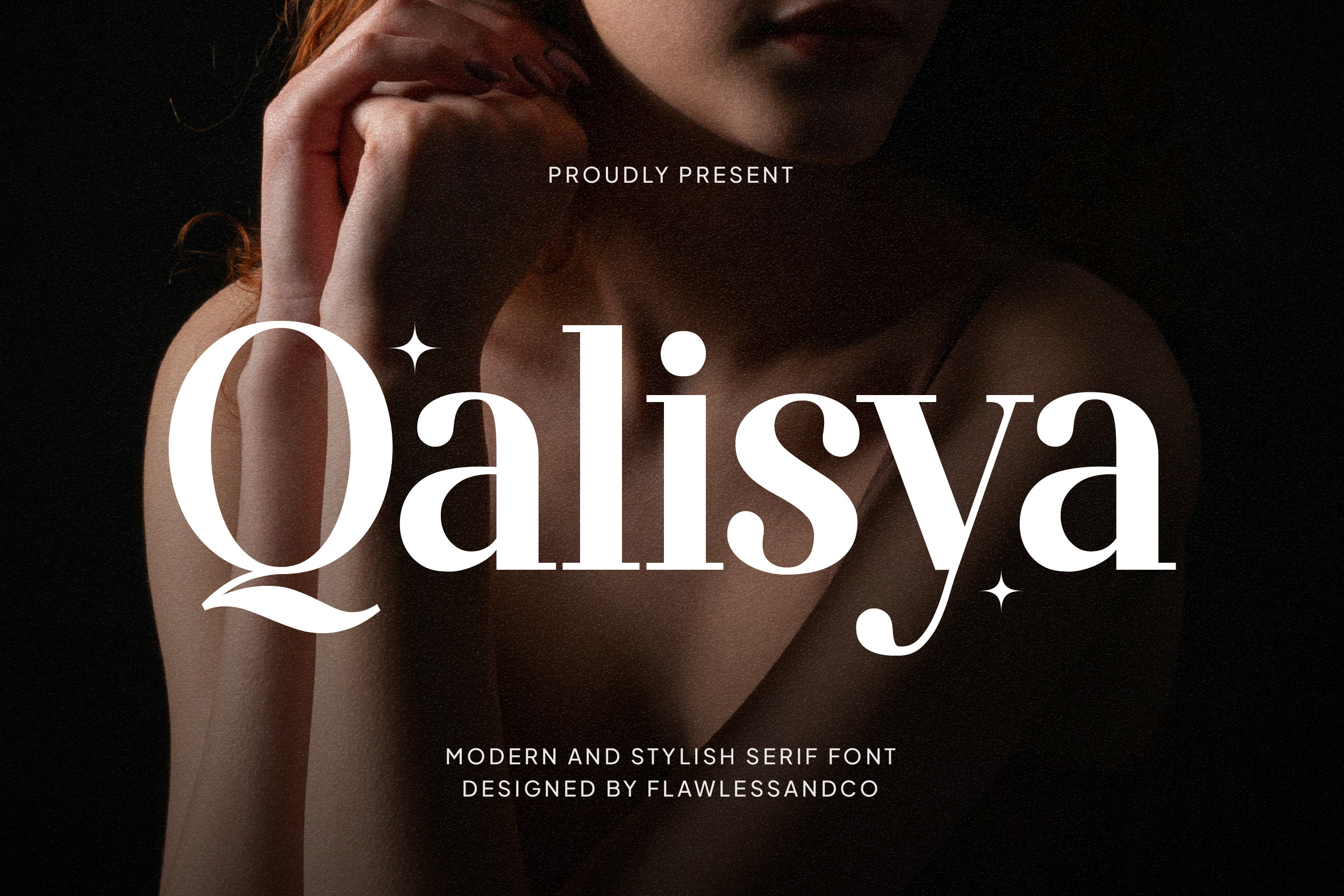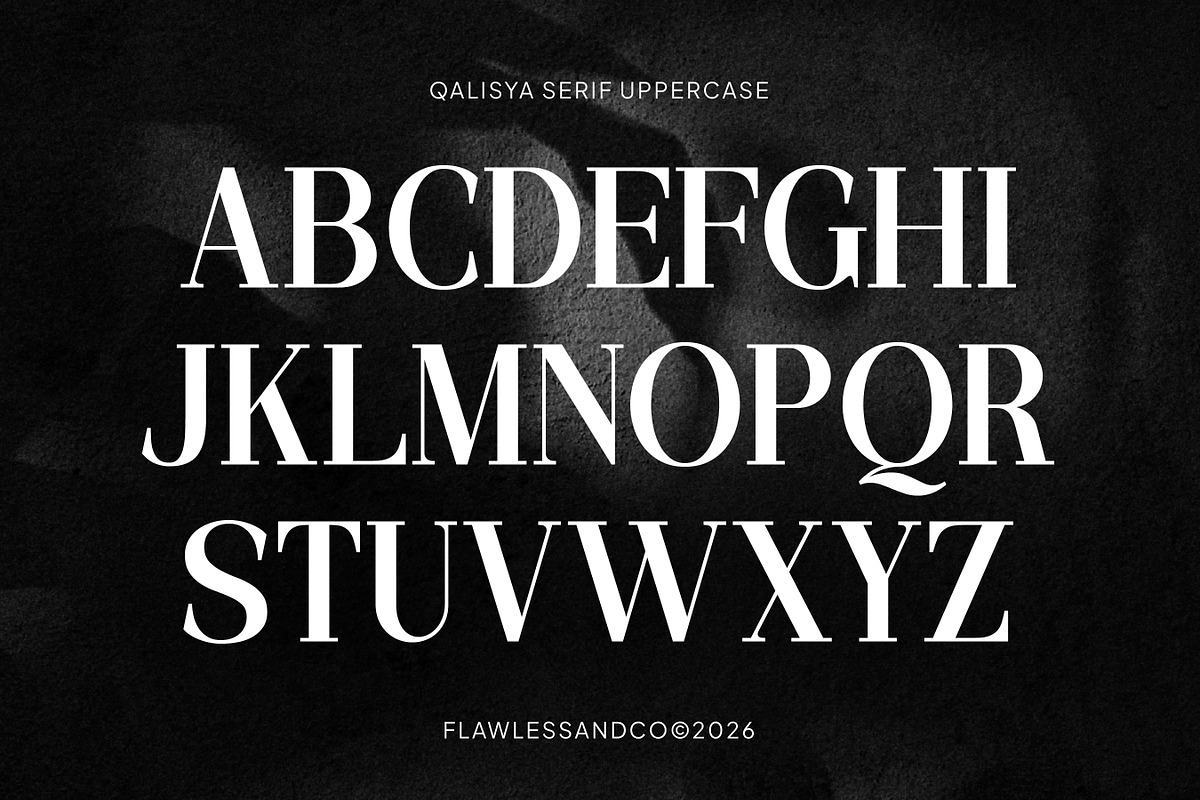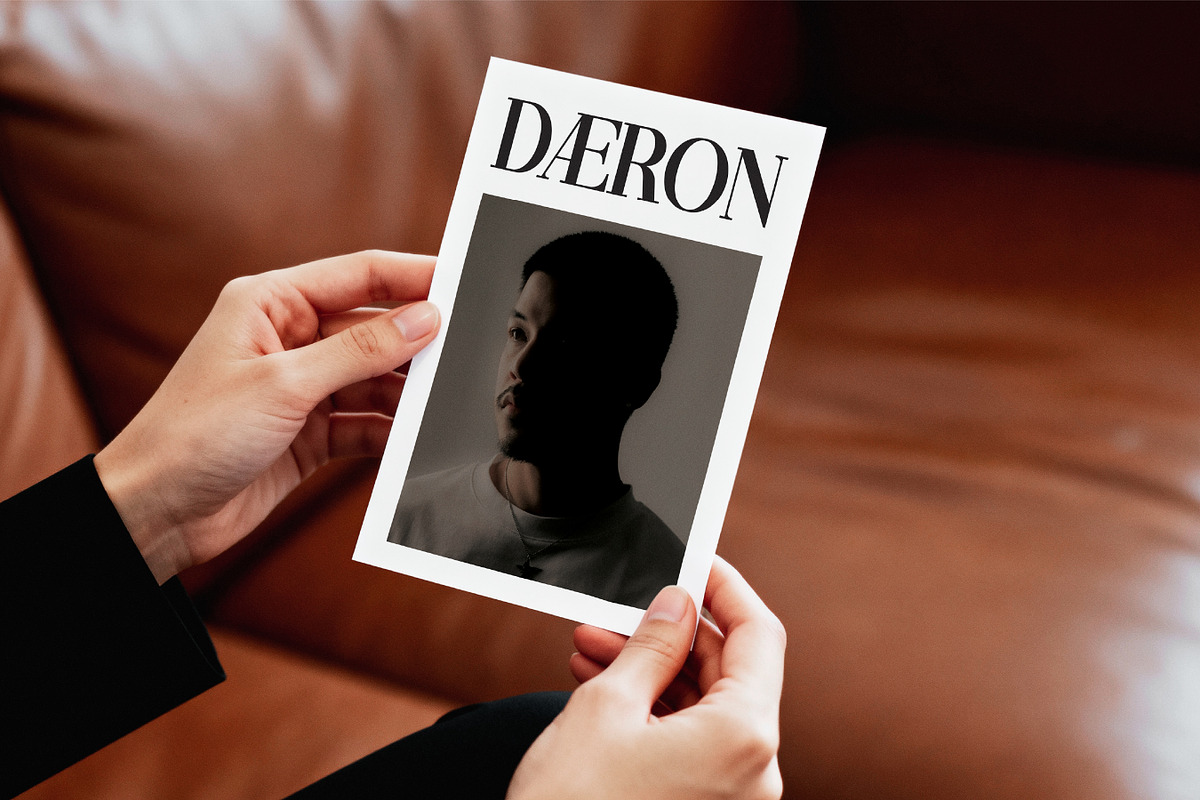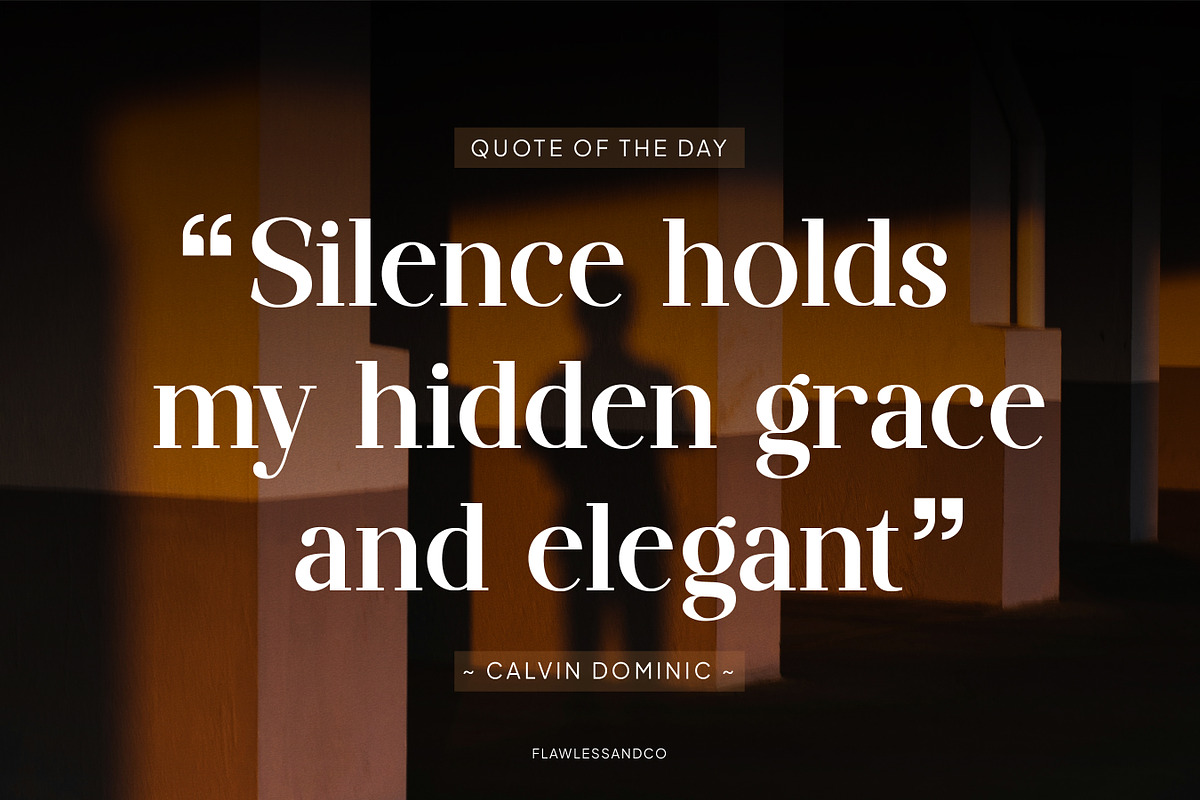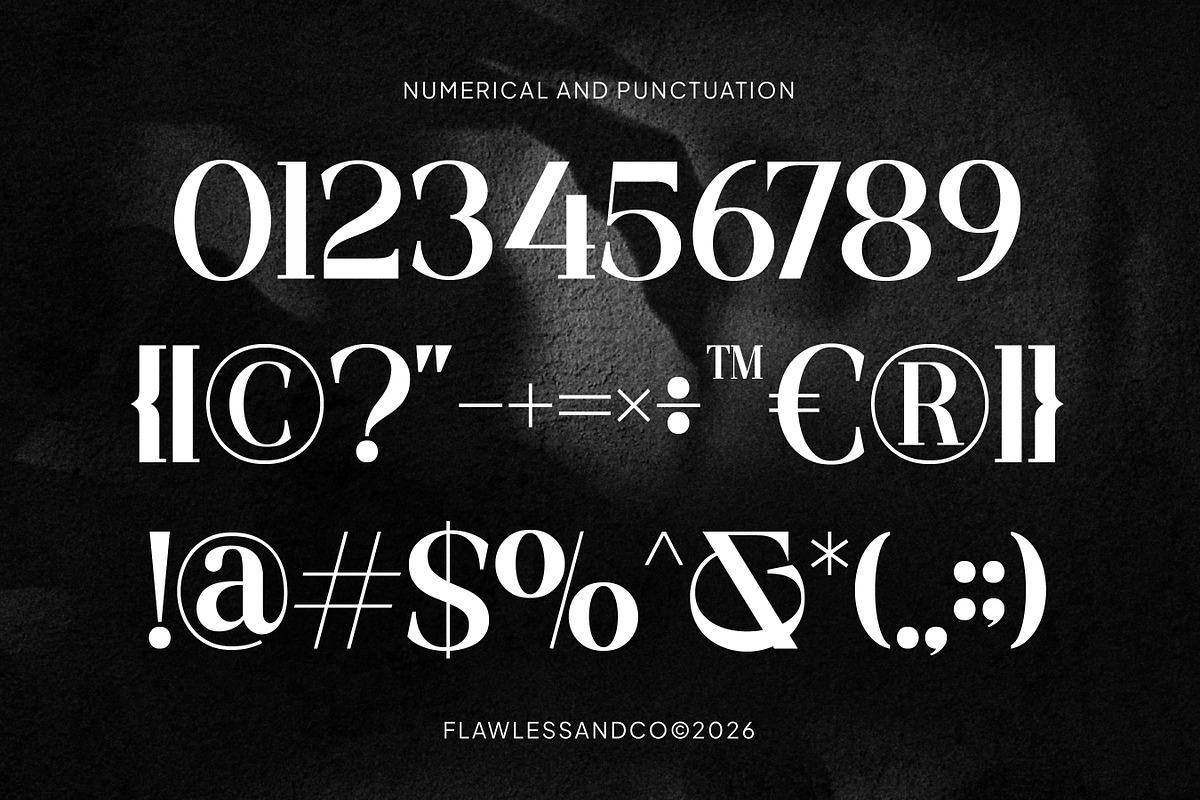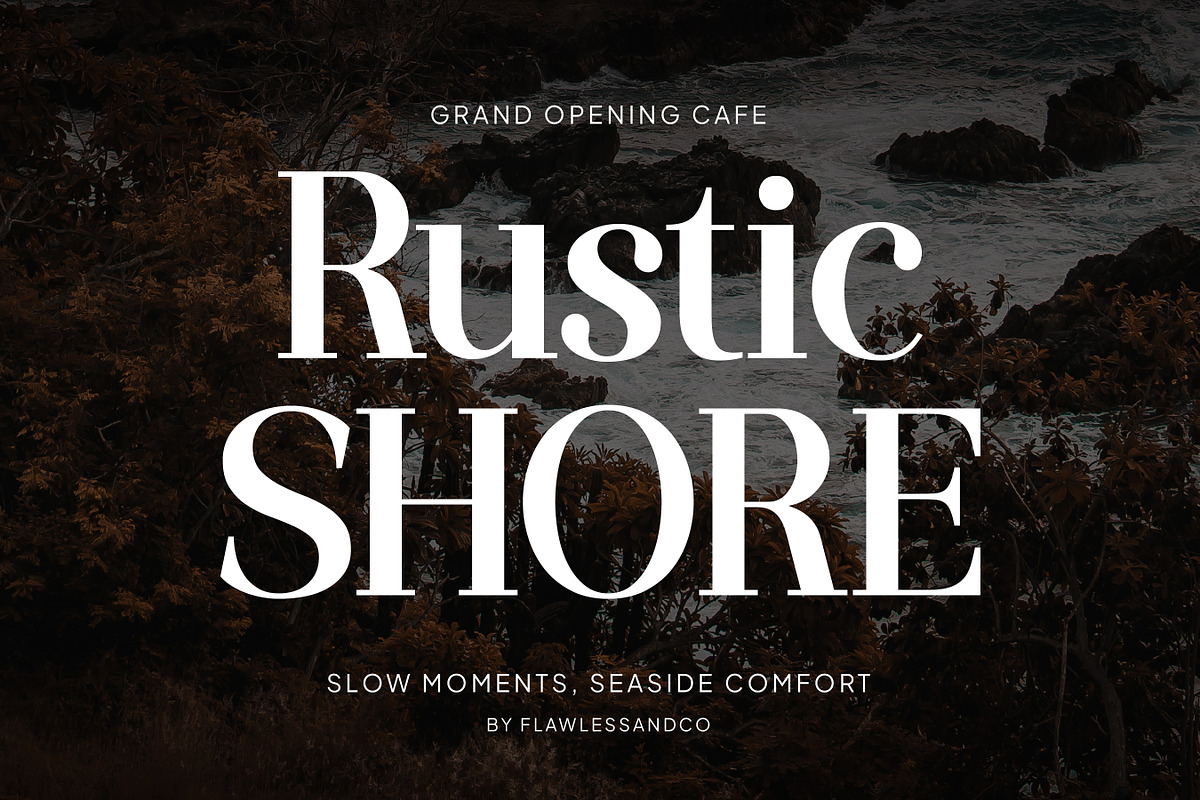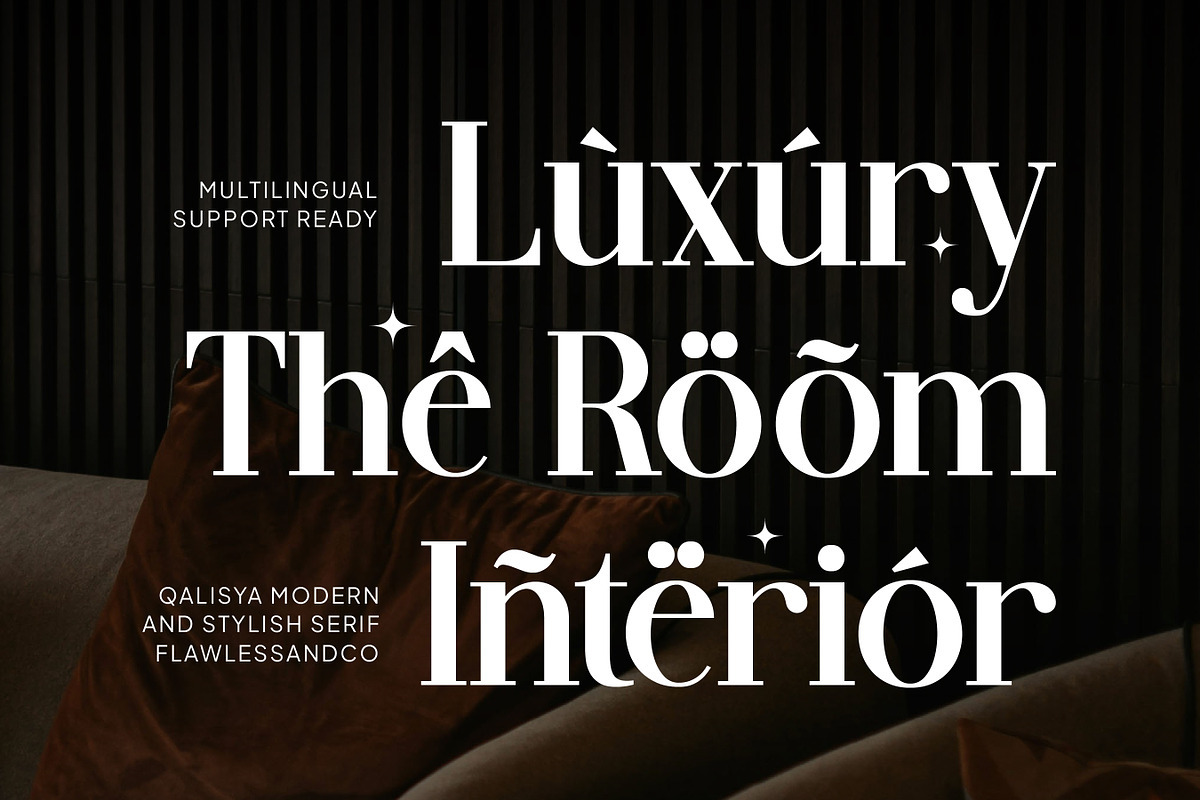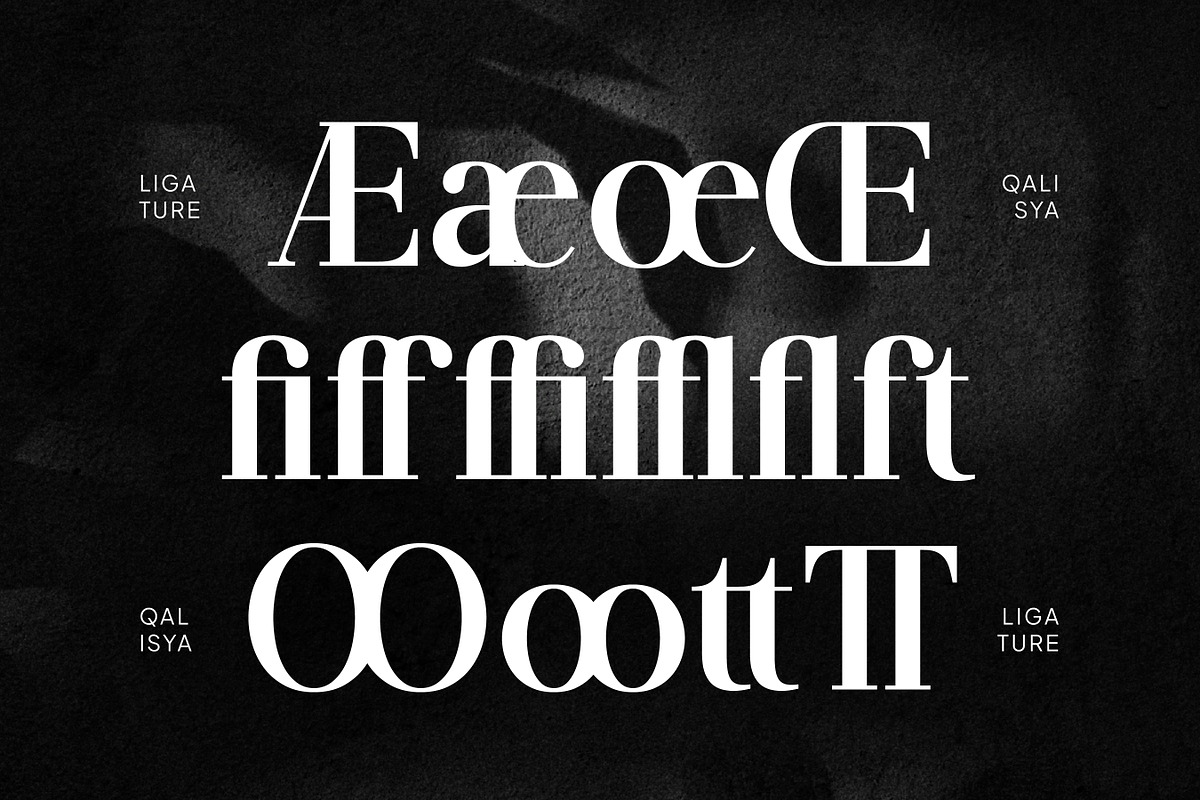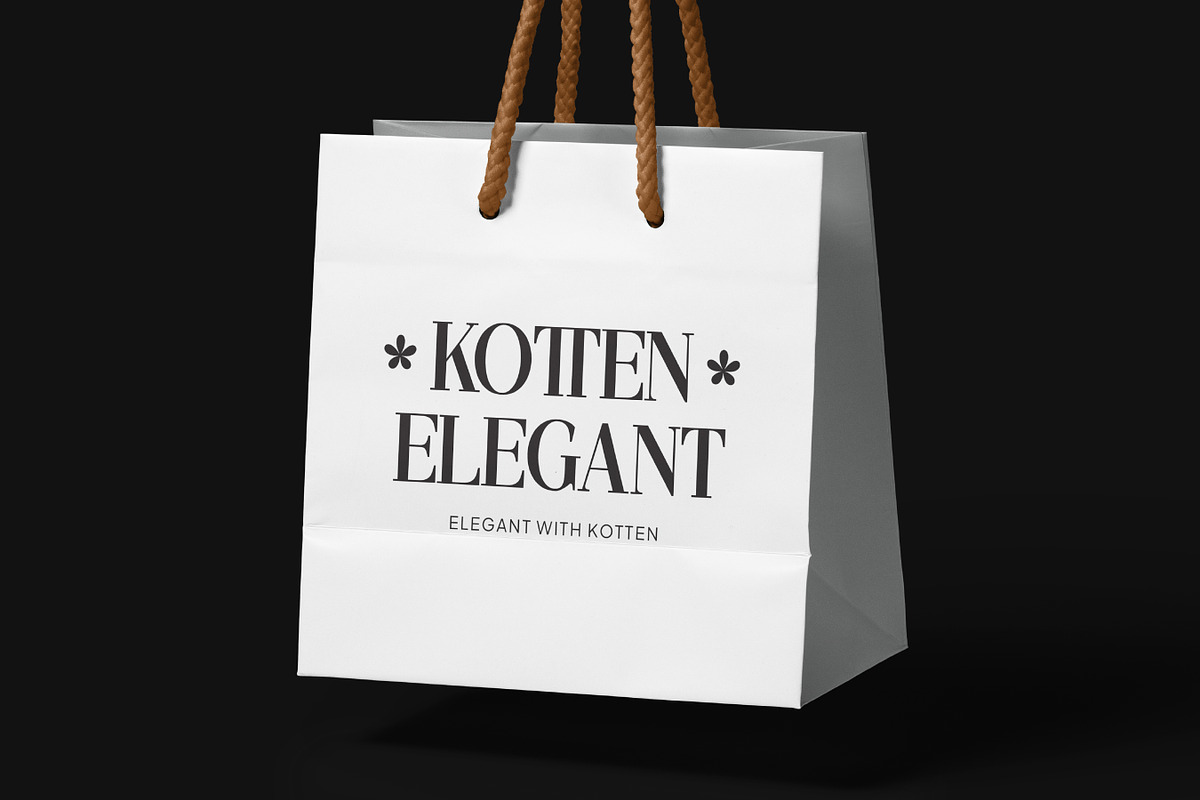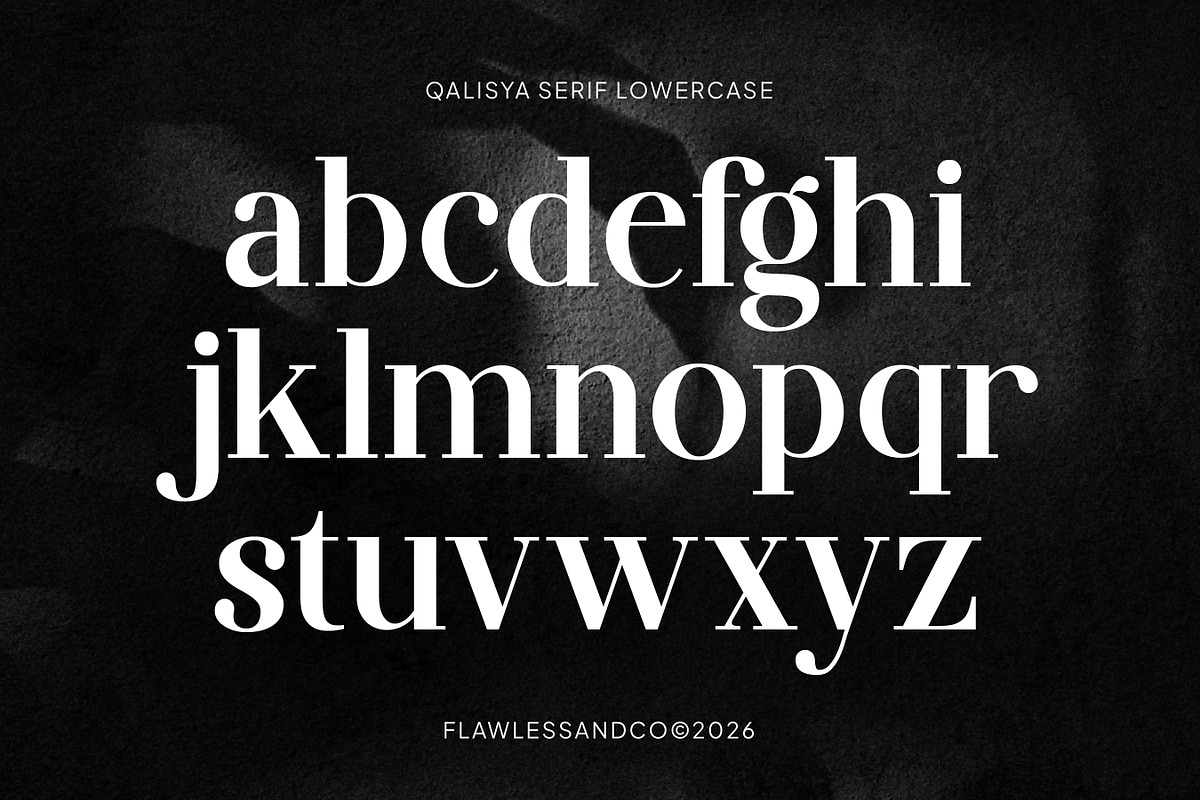
Qalisya - Modern Stylish Serif Font
Qalisya is a refined modern serif typeface that combines timeless elegance with a stylish contemporary flair. Designed with graceful curves and high-contrast letterforms, Qalisya brings a luxurious and sophisticated feel to any design. Its sleek and fashionable appearance makes it perfect for creating standout visuals while maintaining a clean and professional aesthetic. Whether used for branding or editorial design, Qalisya delivers beauty, clarity, and a strong visual presence.
Who Should Use Qalisya?
Qalisya is perfect for designers, creatives, and brand owners who seek a modern yet elegant serif font. It’s especially suited for those working in fashion, beauty, and luxury industries, or anyone looking to create a high-end and stylish visual identity.
Suitable For:
- Luxury and modern branding
- Fashion and beauty logos
- Wedding invitations and stationery
- Editorial layouts and magazine headlines
- Packaging design
- Social media content
- Elegant quotes and typography projects